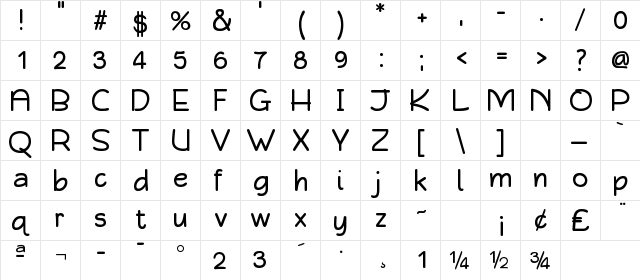
Qikki Reg Regular
| Designer | Joanne Taylor |
Design Context for Qikki Reg Typeface
Qikki Reg is a composed and adaptable typeface that performs quietly and consistently across a wide range of design contexts.